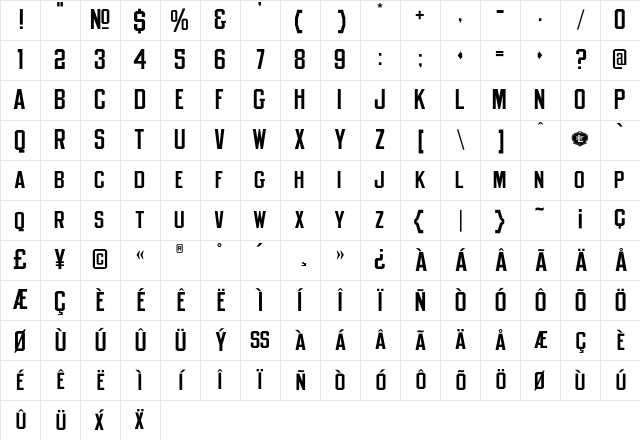
LHFOldBlockCondMed Regular
Design Context for LHFOldBlockCondMed
LHFOldBlockCondMed is a composed and adaptable typeface that performs quietly and consistently across a wide range of design contexts. Its narrow stance lets it pack a punch even in space-constrained designs.